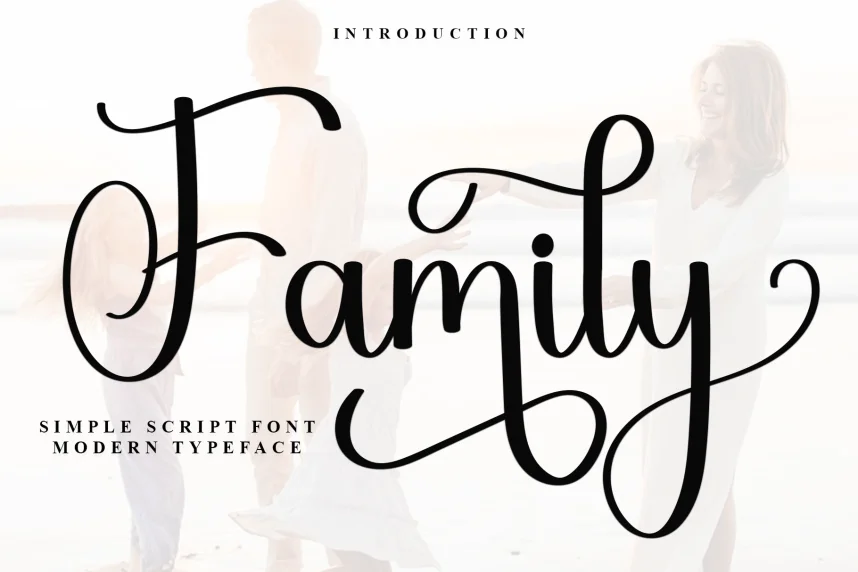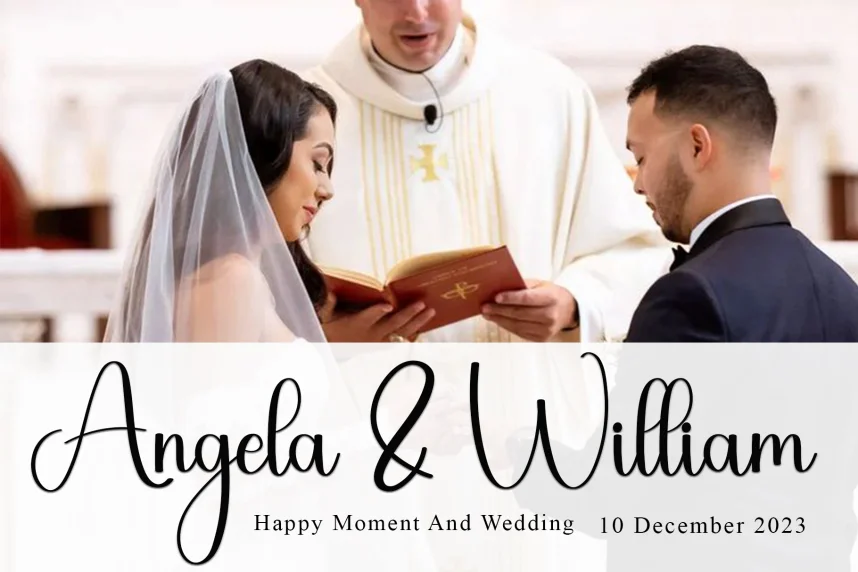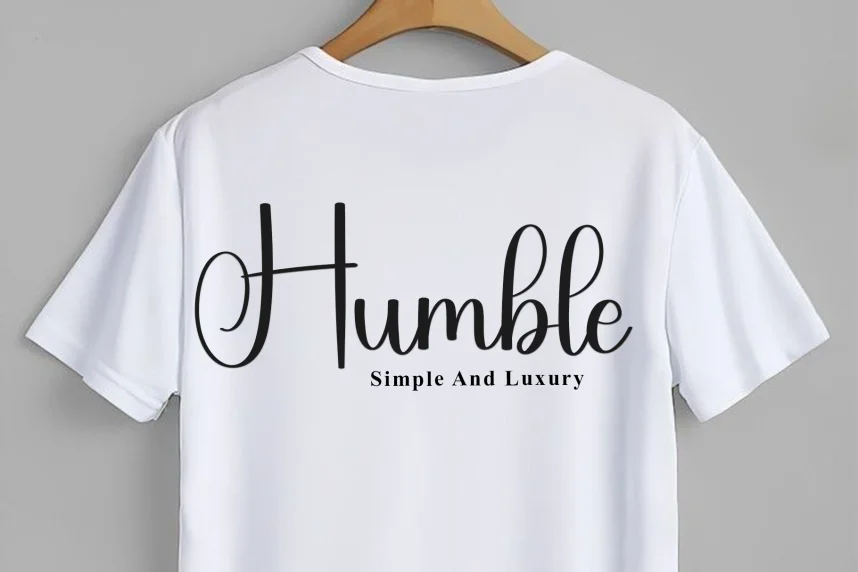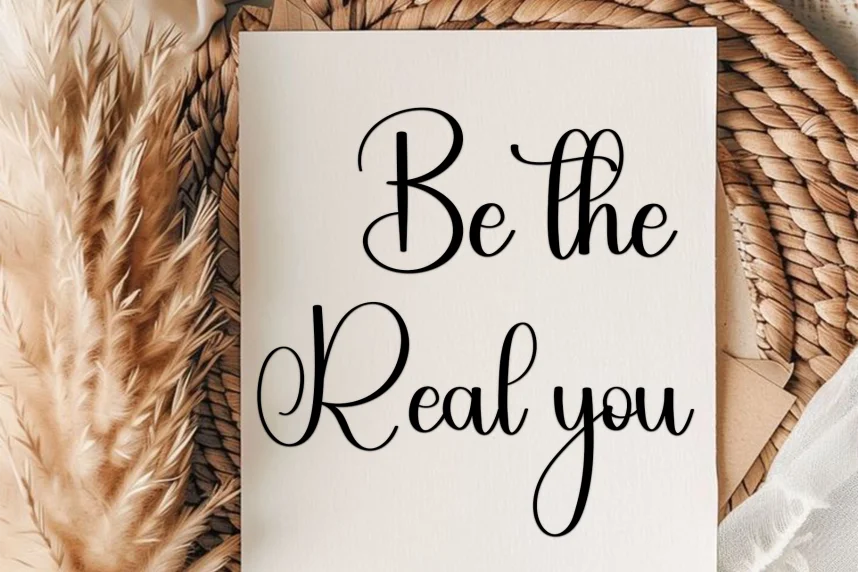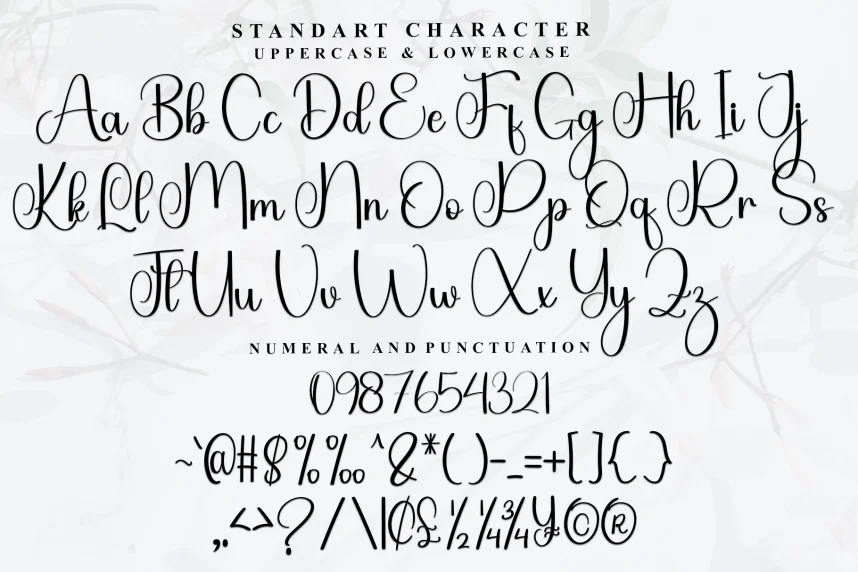
Family Style Script Font addresses the challenge of adding a personal touch to designs without compromising legibility. It’s ideal for projects where a warm, informal, yet readable style is needed.
Family Style is a script font with smooth, flowing strokes and even stroke contrast. Its letterforms maintain readability while giving a relaxed, handwritten feel. The font’s rounded edges and fluid curves add charm, making it perfect for short texts or logo design.